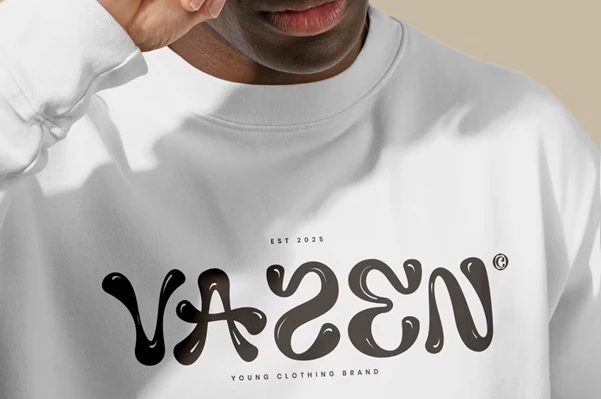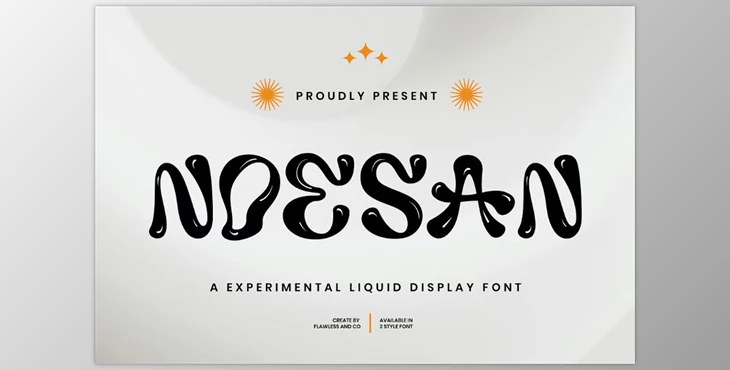
Noesan - Liquid Display Font:
The Noesan font is an experimental display typeface inspired by liquid characteristics. With dripped features and strong strokes, it's an eccentric and experimental typeface for the more progressive design approach. Available in two styles, Noesan is great for the experimental endeavor; use for music posters and branding for DJs, clothing opportunities, electronic graphics, or anywhere more outside the box is needed. This will give your project character.
Some great features of Noesan - Liquid Display Font:
- Uppercase & Lowercase letters
- Alternates & Ligatures
- Numbers & Punctuation
- Multilingual support
Noesan lettering is best for anyone who works with sound, cosmetics, branding, and anyone who wants to give their project an experimental, avant-garde theme. This could be things like streetwear logos, party posters, social media branding, and highlights; anything that embodies a new age philosophy and desire to get people talking will benefit from this.
Those who design logos and brands for themselves will love Noesan because of its thicker curves, reminiscent of the web. It suggests a futuristic desire and rebellious approach to tradition. Use it for visual endeavors of the music and fashion industries and digital placements that promote youth culture; anything you don't want to fall by the wayside will resonate with existence when you use this font.
Noesan will work for anything needing a liquid-like execution because it appears so futuristic, modern, and experimental. As a display typeface with a strong attitude, branding efforts will seem bold, fresh, and unforgettable; use it for logos, headers, merch, anything that needs personality.
Where Noesan is most ideal is for logo creation, branding, and anything else involving creative branding, from streetwear title labels to music or entertainment events, bold packaging, merch, poster designs, and anything visual needing a strong typeface that has liquid attributes and presents itself in a futuristic way.